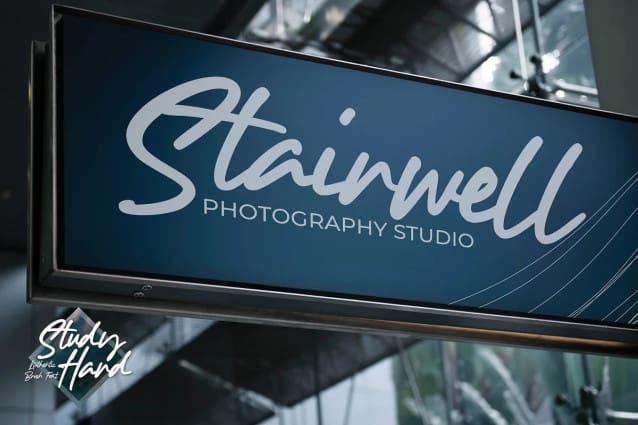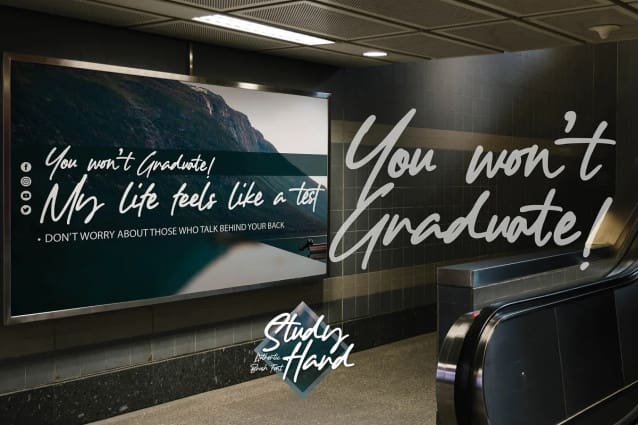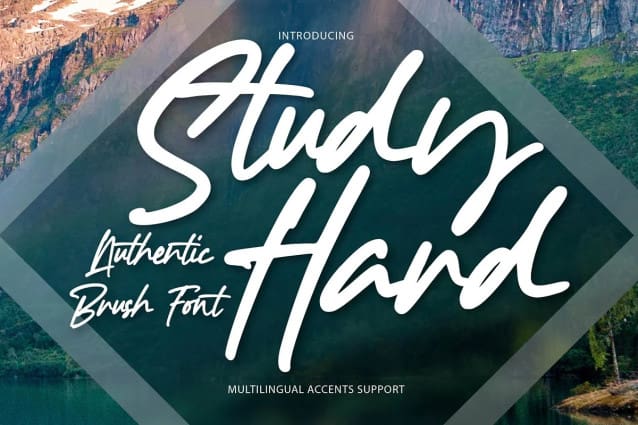
Study Hard Font
Study Hard Font is Authentic Brush Font. font is a Natural Style and classy style, this font is great for your creative projects such as watermark on photography, and perfect for logos & branding, invitation,advertisements,product designs, stationery, wedding designs,label ,product packaging, special events or anything that need handwritting taste. That is why Study Hard has charming, authentic and relaxed characteristic more natural look to your text with a more natural look to your text. You can activate Ligature OpenType panel.